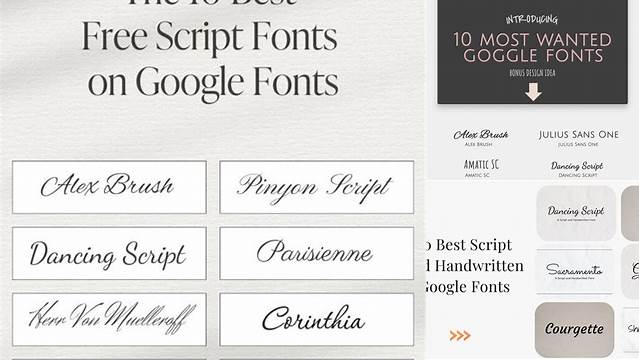
Best Google Script Fonts: Elevate Your Website Design
Choosing the right font can significantly impact the look and feel of your website. Among the vast array of options available, script fonts stand out for their elegant and personal touch. Google Fonts offers a fantastic selection of script fonts that can add a unique flair to your site. In this article, guys, we’re diving deep into the best Google Script fonts for websites, exploring their characteristics, ideal use cases, and how they can enhance your website’s overall design. So, let's get started and find the perfect script font to make your website shine!
Understanding Script Fonts
Script fonts, often resembling handwritten or calligraphic styles, bring a sense of sophistication and creativity to any project. These fonts emulate the flowing strokes of handwriting, adding a personal and artistic touch that can significantly enhance your website's aesthetic appeal. When considering script fonts, it's crucial to understand their nuances and how they can be effectively used to convey the right message. Different types of script fonts exist, each with its unique characteristics. Some are elegant and formal, making them suitable for wedding invitations or high-end branding. Others are more casual and playful, perfect for blogs, creative websites, or anything aiming for a friendly vibe. Understanding these differences is key to choosing a font that aligns with your brand and website's purpose. For example, a flowing, calligraphic script font might be ideal for a luxury brand, while a more relaxed, handwritten style could be perfect for a lifestyle blog. Script fonts work wonders for headings, logos, and accents. Their distinctive style naturally draws the eye, making them perfect for titles and elements that need to stand out. Imagine using a beautifully scripted font for your website's logo or main headings – it instantly adds a touch of elegance and personality. However, caution is advised when using script fonts for body text. Due to their intricate and decorative nature, they can be challenging to read in large blocks. Instead, reserve them for shorter, impactful text segments to maintain readability and user experience. To ensure your website remains accessible and user-friendly, consider pairing your script font with a simpler, more legible sans-serif or serif font for the main content. This combination allows you to leverage the visual appeal of script fonts without sacrificing readability. Think of it as creating a harmonious balance – the script font captures attention, while the simpler font ensures clarity and ease of reading. In addition, always test your font choices across different devices and browsers. What looks stunning on a desktop might appear cluttered or illegible on a mobile screen. By ensuring your chosen script font is responsive and adaptable, you provide a consistent and pleasant experience for all your visitors. So, before you fall in love with a particular script font, take the time to see how it performs in various contexts and on different devices. By carefully selecting and using script fonts, you can significantly elevate your website's design, creating a memorable and engaging experience for your audience. Remember, the goal is to enhance not only the visual appeal but also the overall usability of your site, ensuring that your message is conveyed effectively and beautifully.
Top Google Script Fonts for Websites
Now, let's explore some of the best Google Script fonts that can bring a touch of elegance and personality to your website. These fonts have been selected for their versatility, readability, and aesthetic appeal, making them excellent choices for various design projects. Among the top contenders, several script fonts stand out for their unique charm and adaptability. Each font offers a different feel, from formal and sophisticated to playful and casual, ensuring you can find the perfect match for your brand's identity and website's purpose. We'll delve into what makes each font special, its ideal use cases, and how it can enhance your website's overall design.
1. Pacifico
Pacifico is a delightful, retro-inspired brush script font that brings a cheerful and friendly vibe to any design. Its rounded and flowing letters evoke a sense of playfulness, making it an excellent choice for websites that aim to create a welcoming and approachable atmosphere. This font's roots in the 1950s American surf culture give it a unique, vintage charm that's hard to resist. Imagine Pacifico gracing the homepage of a beach-themed cafe or a children's boutique – its cheerful aesthetic perfectly complements these settings. The casual and friendly nature of Pacifico makes it particularly well-suited for blogs, personal websites, and creative projects. If you're looking to add a touch of whimsy and personality to your site, Pacifico is a fantastic option. However, while Pacifico is visually appealing, it's essential to use it judiciously. Due to its distinct style, it's best used for headings, logos, and short bursts of text rather than extensive paragraphs. Using it sparingly ensures that it retains its impact without overwhelming the reader. For body text, consider pairing Pacifico with a clean, legible sans-serif font like Open Sans or Lato. This combination creates a harmonious contrast, allowing Pacifico to shine while maintaining readability for your main content. Think of it as creating a balanced visual hierarchy – Pacifico grabs attention, while the sans-serif font ensures clarity. In design, context is everything, and Pacifico is no exception. It thrives in environments that celebrate creativity and fun. A website for a party planner, an art studio, or a handmade goods store could greatly benefit from Pacifico's cheerful aesthetic. Its retro vibe also makes it a natural fit for vintage-themed projects or websites that aim to evoke a sense of nostalgia. But perhaps the most significant appeal of Pacifico lies in its ability to connect with an audience on an emotional level. Its friendly curves and approachable style create an immediate sense of warmth, inviting visitors to explore your website further. This is particularly valuable for businesses and individuals looking to build a strong, personal connection with their audience. So, if you're seeking a font that not only looks good but also makes people feel good, Pacifico might just be the perfect choice. By understanding its strengths and limitations, you can leverage this font to create a website that's both visually appealing and emotionally engaging.
2. Lobster
Lobster is a bold and condensed script font that exudes confidence and sophistication. Its distinctive and attention-grabbing style makes it an excellent choice for headlines, logos, and other prominent design elements. This font's unique characteristics stem from its combination of thick, flowing strokes and a slightly vintage aesthetic, giving it a timeless yet modern appeal. Imagine seeing Lobster emblazoned across the header of a stylish café website or gracing the logo of a high-end fashion boutique – its striking presence is sure to make a lasting impression. Lobster’s strong personality makes it particularly well-suited for brands that want to convey a sense of boldness and elegance. It works exceptionally well in industries such as fashion, food, and entertainment, where visual impact is paramount. However, it's crucial to use Lobster judiciously. Its condensed nature and strong presence mean it's best reserved for headings and shorter text segments rather than lengthy paragraphs. Overusing Lobster can lead to a cluttered and overwhelming design, diminishing its impact. Pairing Lobster with a clean and simple sans-serif font for body text is essential to maintain readability and balance. Fonts like Montserrat or Roboto provide a harmonious contrast, allowing Lobster to stand out without sacrificing legibility. Think of it as creating a visual hierarchy where Lobster commands attention, and the sans-serif font ensures clarity and ease of reading. When incorporating Lobster into your design, consider the overall context and the message you want to convey. Its bold and confident style is ideal for making a statement, whether it's announcing a new product, highlighting a special offer, or simply creating a memorable brand identity. A website for a music venue, a gourmet restaurant, or a luxury travel agency could greatly benefit from Lobster's striking aesthetic. The visual appeal of Lobster lies not only in its bold lines but also in its ability to evoke a sense of nostalgia. Its vintage-inspired design gives it a timeless quality, making it feel both classic and contemporary. This makes it an excellent choice for brands that want to project a sense of heritage and sophistication. Moreover, Lobster's condensed form factor allows it to fit well in tight spaces, making it a practical choice for responsive designs. This ensures that your website looks polished and professional across all devices, from desktops to smartphones. So, if you're looking for a font that combines boldness, elegance, and a touch of vintage charm, Lobster is a standout choice. By using it strategically and pairing it with complementary fonts, you can create a website that's both visually stunning and highly effective in communicating your message.
3. Great Vibes
Great Vibes lives up to its name, offering an elegant and flowing script font that adds a touch of sophistication to any project. Its graceful and refined appearance makes it an excellent choice for wedding invitations, formal event websites, and designs that require a touch of class. This font's calligraphic style exudes a timeless charm, evoking the elegance of traditional handwriting. Imagine Great Vibes adorning a wedding invitation suite or gracing the header of a luxury brand's website – its delicate curves and refined strokes create an immediate sense of sophistication. The graceful nature of Great Vibes makes it particularly well-suited for projects that aim to convey a sense of elegance and formality. It works exceptionally well in industries such as wedding planning, high-end fashion, and luxury hospitality, where attention to detail and a refined aesthetic are paramount. However, it's essential to use Great Vibes judiciously. Its intricate and decorative nature means it's best reserved for headings, logos, and short bursts of text rather than extensive paragraphs. Overusing Great Vibes can lead to a cluttered and overwhelming design, diminishing its impact. To maintain readability and balance, consider pairing Great Vibes with a clean and simple sans-serif or serif font for body text. Fonts like Open Sans or Lora provide a harmonious contrast, allowing Great Vibes to stand out without sacrificing legibility. Think of it as creating a visual hierarchy where Great Vibes captures attention, and the simpler font ensures clarity and ease of reading. When incorporating Great Vibes into your design, consider the overall context and the message you want to convey. Its elegant and formal style is ideal for making a statement of sophistication, whether it's announcing a special event, highlighting a luxury product, or simply creating a refined brand identity. A website for a high-end jewelry store, a formal event planner, or a luxury hotel could greatly benefit from Great Vibes' graceful aesthetic. The visual appeal of Great Vibes lies not only in its delicate curves but also in its ability to evoke a sense of timeless beauty. Its calligraphic design gives it a classic quality, making it feel both elegant and sophisticated. This makes it an excellent choice for brands that want to project an image of heritage and refinement. Moreover, Great Vibes' flowing strokes and balanced letterforms make it visually pleasing across various sizes and applications. This ensures that your website looks polished and professional across all devices, from desktops to smartphones. So, if you're looking for a font that combines elegance, sophistication, and a touch of timeless charm, Great Vibes is a standout choice. By using it strategically and pairing it with complementary fonts, you can create a website that's both visually stunning and highly effective in communicating your message of refinement and grace.
4. Kaushan Script
Kaushan Script is a versatile and energetic brush script font that adds a dynamic touch to any design. Its bold and slightly rough strokes give it a handmade feel, making it an excellent choice for websites that aim to convey authenticity and creativity. This font's unique character stems from its imperfect lines and varying thickness, creating a sense of movement and personality. Imagine Kaushan Script gracing the header of a creative agency's website or adorning the logo of a handmade goods store – its energetic vibe is sure to capture attention. The dynamic nature of Kaushan Script makes it particularly well-suited for projects that aim to convey a sense of creativity and authenticity. It works exceptionally well in industries such as art, design, and fashion, where originality and personality are highly valued. However, it's crucial to use Kaushan Script judiciously. Its bold and slightly rough texture means it's best reserved for headings, logos, and short bursts of text rather than extensive paragraphs. Overusing Kaushan Script can lead to a cluttered and overwhelming design, diminishing its impact. Pairing Kaushan Script with a clean and simple sans-serif or serif font for body text is essential to maintain readability and balance. Fonts like Roboto or Montserrat provide a harmonious contrast, allowing Kaushan Script to stand out without sacrificing legibility. Think of it as creating a visual hierarchy where Kaushan Script commands attention, and the simpler font ensures clarity and ease of reading. When incorporating Kaushan Script into your design, consider the overall context and the message you want to convey. Its energetic and authentic style is ideal for making a statement of creativity, whether it's announcing a new project, highlighting a unique product, or simply creating a memorable brand identity. A website for a design studio, a craft workshop, or a boutique clothing store could greatly benefit from Kaushan Script's dynamic aesthetic. The visual appeal of Kaushan Script lies not only in its bold strokes but also in its ability to evoke a sense of handmade craftsmanship. Its imperfect lines and varying thickness give it a personal touch, making it feel both authentic and approachable. This makes it an excellent choice for brands that want to project an image of creativity and originality. Moreover, Kaushan Script's strong presence and unique character make it visually striking across various sizes and applications. This ensures that your website looks polished and professional across all devices, from desktops to smartphones. So, if you're looking for a font that combines energy, authenticity, and a touch of handmade charm, Kaushan Script is a standout choice. By using it strategically and pairing it with complementary fonts, you can create a website that's both visually stunning and highly effective in communicating your message of creativity and originality.
5. Indie Flower
Indie Flower is a playful and whimsical script font that brings a touch of fun to any design. Its casual and childlike appearance makes it an excellent choice for blogs, personal websites, and projects that aim to create a lighthearted and friendly atmosphere. This font's unique character stems from its uneven baseline and slightly quirky letterforms, giving it a handmade and approachable feel. Imagine Indie Flower gracing the header of a children's book website or adorning the blog of a lifestyle enthusiast – its cheerful vibe is sure to bring a smile. The playful nature of Indie Flower makes it particularly well-suited for projects that aim to convey a sense of fun and informality. It works exceptionally well in industries such as education, entertainment, and personal blogging, where a friendly and approachable tone is valued. However, it's crucial to use Indie Flower judiciously. Its casual and slightly whimsical style means it's best reserved for headings, logos, and short bursts of text rather than extensive paragraphs. Overusing Indie Flower can lead to a cluttered and overwhelming design, diminishing its impact. Pairing Indie Flower with a clean and simple sans-serif font for body text is essential to maintain readability and balance. Fonts like Open Sans or Lato provide a harmonious contrast, allowing Indie Flower to stand out without sacrificing legibility. Think of it as creating a visual hierarchy where Indie Flower captures attention, and the simpler font ensures clarity and ease of reading. When incorporating Indie Flower into your design, consider the overall context and the message you want to convey. Its playful and informal style is ideal for making a statement of fun and approachability, whether it's announcing a new project, highlighting a creative endeavor, or simply creating a welcoming online presence. A website for a daycare center, a children's clothing store, or a personal blog focused on family life could greatly benefit from Indie Flower's cheerful aesthetic. The visual appeal of Indie Flower lies not only in its casual letterforms but also in its ability to evoke a sense of childlike wonder. Its uneven baseline and slightly quirky characters give it a personal touch, making it feel both authentic and approachable. This makes it an excellent choice for brands and individuals who want to project an image of warmth and friendliness. Moreover, Indie Flower's unique character and playful vibe make it visually striking across various sizes and applications. This ensures that your website looks polished and professional across all devices, from desktops to smartphones. So, if you're looking for a font that combines playfulness, informality, and a touch of childlike charm, Indie Flower is a standout choice. By using it strategically and pairing it with complementary fonts, you can create a website that's both visually appealing and highly effective in communicating your message of fun and approachability.
Tips for Using Script Fonts Effectively
To make the most of script fonts on your website, it's essential to use them strategically. Effective use of script fonts can elevate your design, adding personality and style, while misuse can lead to readability issues and a cluttered appearance. So, guys, let's dive into some key tips to help you harness the power of script fonts effectively. One of the most crucial aspects of using script fonts is readability. As we've discussed, script fonts, with their intricate and decorative nature, can be challenging to read in large blocks of text. Therefore, it's generally best to reserve them for headings, logos, and short, impactful phrases. Imagine trying to read an entire paragraph written in a complex script font – it can quickly become tiring and frustrating for your visitors. By limiting their use to shorter text segments, you ensure that the font's visual appeal doesn't come at the expense of readability. Pairing script fonts with simpler fonts is another essential strategy for creating a balanced and visually appealing design. A clean and legible sans-serif or serif font for body text complements the decorative nature of script fonts, creating a harmonious contrast. This combination allows the script font to stand out and grab attention, while the simpler font ensures that your main content is easy to read. Think of it as a visual partnership – the script font adds flair, while the simpler font provides clarity. The context of your website and brand is another critical factor to consider when choosing and using script fonts. The font you select should align with your brand's personality and the overall message you want to convey. For example, a formal and elegant script font might be perfect for a luxury brand's website, while a more casual and playful script font could be better suited for a blog or personal website. By ensuring that your font choices are consistent with your brand identity, you create a cohesive and professional look. Font size and spacing also play a significant role in the effectiveness of script fonts. A script font that looks stunning at a large size may become illegible when scaled down. Similarly, tight letter spacing can make a script font appear cluttered and difficult to read. Experimenting with different font sizes and spacing options is essential to find the optimal settings for your chosen font. You want to ensure that your script font is both visually appealing and easy to read, regardless of the device or screen size. Consistency is key when using script fonts on your website. While it can be tempting to use multiple script fonts to create a unique look, doing so can often lead to a cluttered and inconsistent design. It's generally best to stick to one or two script fonts and use them strategically throughout your website. This creates a cohesive visual identity and ensures that your design remains professional and polished. Finally, testing your website across different devices and browsers is essential to ensure that your script fonts are rendering correctly. What looks perfect on your desktop may appear differently on a mobile device or in a different browser. By testing your website thoroughly, you can identify and address any potential issues, ensuring that all your visitors have a positive experience. So, by keeping these tips in mind, you can harness the power of script fonts to elevate your website's design, adding personality, style, and visual appeal while maintaining readability and a professional look.
In conclusion, choosing the right script font can significantly enhance your website’s design, adding a touch of personality and elegance. Google Fonts offers a diverse range of script fonts, each with its unique charm and characteristics. By understanding the nuances of these fonts and how to use them effectively, you can create a website that not only looks stunning but also effectively communicates your message. From the playful Pacifico to the elegant Great Vibes, there’s a script font to suit every style and purpose. Remember to prioritize readability, pair script fonts with simpler fonts for body text, and consider the context of your website and brand. By following these guidelines, you can confidently incorporate script fonts into your designs and create a website that stands out from the crowd. So, go ahead and explore the world of Google Script fonts – your perfect match awaits!